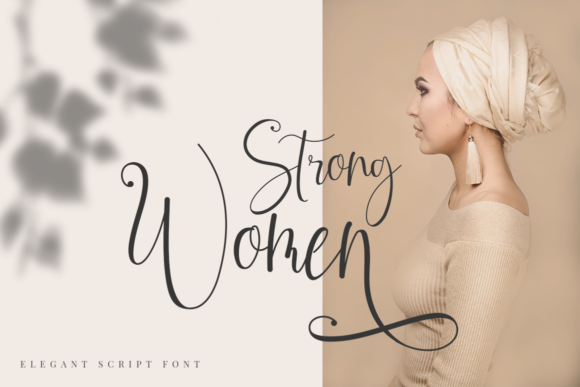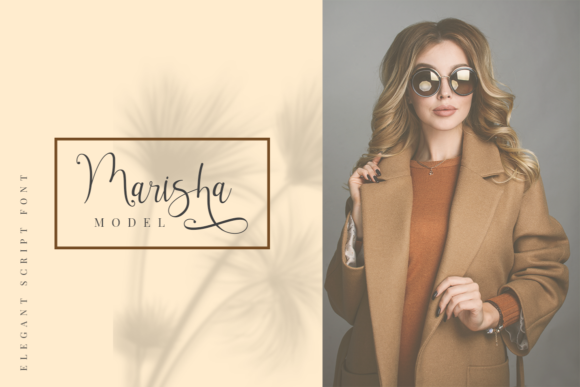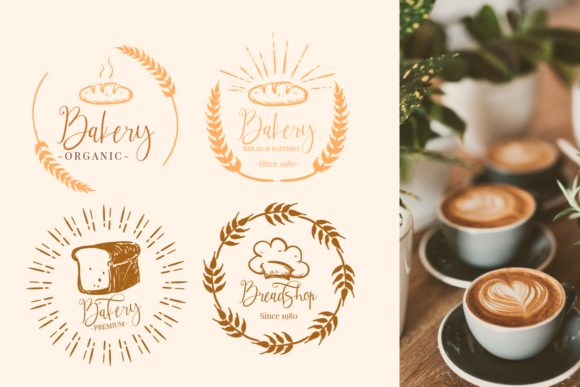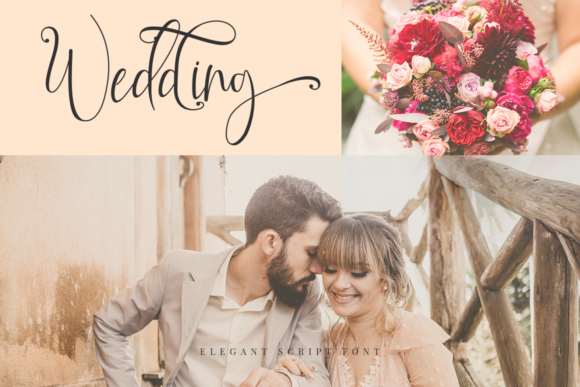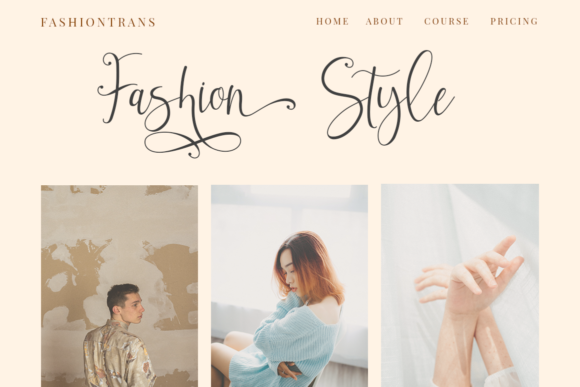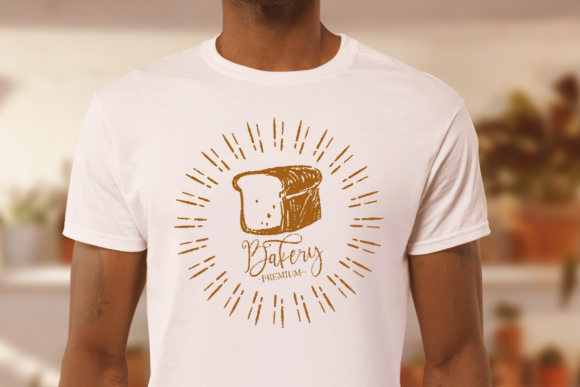
Introducing Amarithe Font: Elevate Your Designs with Elegance and Sophistication
In the world of typography, a beautiful font can make all the difference in creating stunning designs that capture the essence of a message. If you’re a designer, crafty DIY enthusiast, or simply someone who appreciates the art of lettering, you’re in for a treat. Say hello to Amarithe Font, a gorgeous and modern script font that’s perfect for a variety of creative projects. From wedding events and anniversary cards to logotypes, branding, and more, Amarithe Font is the perfect addition to your typographic arsenal.
What Makes Amarithe Font So Special?
Amarithe Font is more than just a pretty face. This exquisite script font boasts a range of features that make it both versatile and easy to use. Here are just a few reasons why designers and crafters are falling in love with Amarithe Font:
• PUA Encoding: Amarithe Font is PUA (Private Use Area) encoded, which means you can access all the adorable glyphs and swashes with ease. No more tedious searching for the perfect character – with Amarithe Font, you have everything you need right at your fingertips.
• Alternate Glyphs and Ligatures: This font features a wealth of special features, including alternate glyphs and ligatures. These extras allow you to add an extra layer of sophistication and elegance to your designs, taking them from ordinary to extraordinary.
• Modern Script Style: Amarithe Font boasts a modern script style that’s perfect for creating beautiful, eye-catching designs. Its flowing lines and delicate curves make it ideal for projects that require a touch of whimsy and romance.
So, what can you create with Amarithe Font? The possibilities are endless! Here are just a few ideas to get you started:
• Wedding Events: Create stunning wedding invitations, programs, and decorations with Amarithe Font. Its elegant, cursive style is perfect for formal wedding events and adds a touch of sophistication to any design.
• Anniversary Cards: Celebrate special occasions with beautifully designed anniversary cards featuring Amarithe Font. Its romantic, whimsical style is sure to make your loved ones feel extra special.
• Greeting Cards: From birthday cards to thank-you notes, Amarithe Font is the perfect choice for creating eye-catching greeting cards that are sure to impress.
• Logotype and Branding: Use Amarithe Font to create a stunning logotype or brand identity that sets your business apart from the rest. Its modern, elegant style is perfect for businesses that want to convey a sense of sophistication and style.
Tips for Using Amarithe Font
To get the most out of Amarithe Font, here are a few tips to keep in mind:
• Experiment with Glyphs and Swashes: Don’t be afraid to get creative with Amarithe Font’s glyphs and swashes. Experiment with different combinations to add a unique touch to your designs.
• Pair with Other Fonts: Amarithe Font pairs beautifully with other fonts, so don’t be afraid to get creative with font combinations. Try pairing it with a bold sans-serif font for a striking contrast.
• Use for Headings and Titles: Amarithe Font is perfect for headings and titles, where its elegant, cursive style can really shine. Use it to add a touch of sophistication to your designs and draw attention to important information.
In conclusion, Amarithe Font is a beautiful and modern script font that’s perfect for designers, crafters, and anyone who appreciates the art of lettering. With its PUA encoding, alternate glyphs and ligatures, and modern script style, Amarithe Font is the perfect choice for a variety of creative projects. Whether you’re creating wedding invitations, anniversary cards, or logotypes, Amarithe Font is sure to elevate your designs to the next level. So why wait? Download Amarithe Font today and start creating stunning designs that showcase your unique style and creativity!